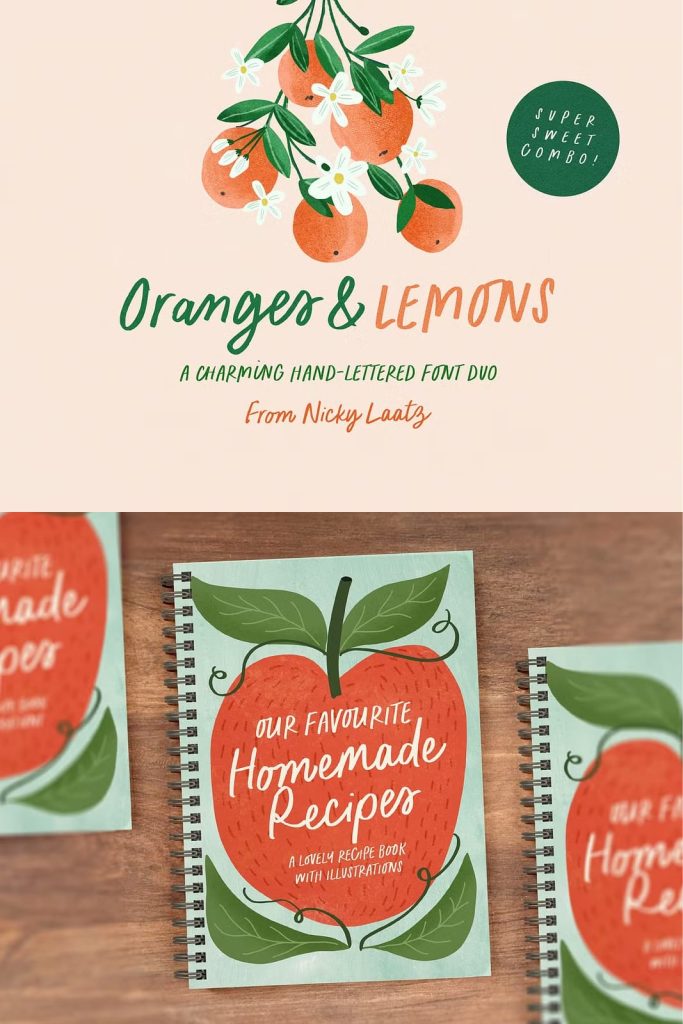
Oranges and Lemons Font Duo: A Charming Hand-Lettered Typeface
Oranges and Lemons Font Duo brings a delightful and playful touch to your design projects. This charming hand-lettered typeface captures a warm, friendly personality that instantly makes your work feel more inviting and expressive. Designed with creativity in mind, this font duo blends casual elegance with a handcrafted style, making it an excellent choice for designers who want to create authentic and engaging visuals.
A Sweet and Versatile Design Style
Oranges and Lemons Font Duo stands out with its soft curves, natural strokes, and relaxed letterforms. The hand-drawn aesthetic adds a human touch that digital fonts often lack. This makes it especially effective for projects that require warmth, personality, and a sense of approachability.
The font duo typically includes complementary styles that work together seamlessly. You can combine them to create contrast and hierarchy in your typography, helping you build visually appealing compositions without needing multiple unrelated fonts.
Perfect for Creative and Casual Projects
This font duo adapts effortlessly to a wide range of creative applications. Its friendly and approachable style makes it particularly well-suited for:
- Greeting cards and invitations
- Illustrations and hand-lettered artwork
- Inspirational quotes and social media posts
- Quaint and modern branding projects
- Book covers and children’s book designs
- Product packaging and labels
Whether you are designing for print or digital platforms, Oranges and Lemons Font Duo helps you communicate emotion and personality with ease.
Create Engaging Typography with Ease
Oranges and Lemons Font Duo allows you to create dynamic typography without complex adjustments. Its natural flow and balanced spacing make it easy to use, even for beginners. At the same time, experienced designers can take advantage of its stylistic features to craft more refined and customized layouts.
You can experiment with size, spacing, and alignment to create unique typographic compositions. Pair it with simple backgrounds or soft color palettes to highlight its hand-lettered charm. The font works beautifully in both minimal and decorative designs.
Enhance Branding and Storytelling
Strong typography plays a key role in building a memorable brand identity. Oranges and Lemons Font Duo helps you tell a story through its friendly and expressive letterforms. It creates an emotional connection with your audience, making your designs feel more personal and relatable.
This makes it an excellent choice for small businesses, creative entrepreneurs, and brands that want to present a warm and authentic image. From logo design to packaging, the font adds a distinctive voice that sets your work apart.
Why Choose Oranges and Lemons Font Duo
Oranges and Lemons Font Duo combines simplicity with character. Its handcrafted style delivers visual interest without overwhelming your design. You can rely on it to bring consistency and charm across different types of projects.
The flexibility of this font duo allows you to explore various creative directions. Use it for playful designs, elegant compositions, or storytelling visuals. Its adaptability ensures that it remains a valuable addition to your font collection.
Bring Your Ideas to Life
If you want to create designs that feel warm, inviting, and full of personality, Oranges and Lemons Font Duo provides the perfect solution. Use it to transform simple text into expressive typography that captures attention and communicates your message effectively.
Start exploring new creative possibilities and let Oranges and Lemons Font Duo add a charming and sweet touch to your next project.